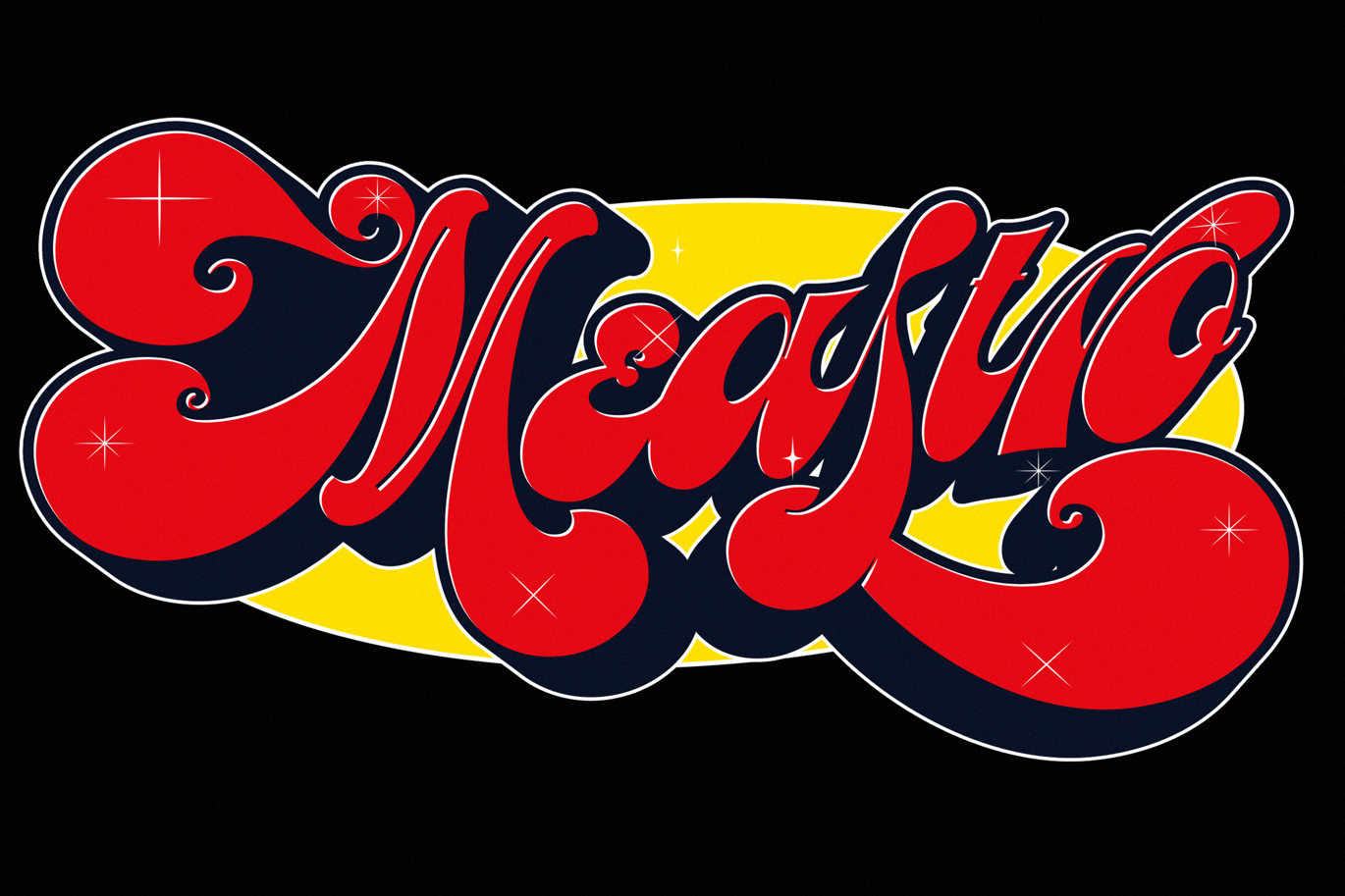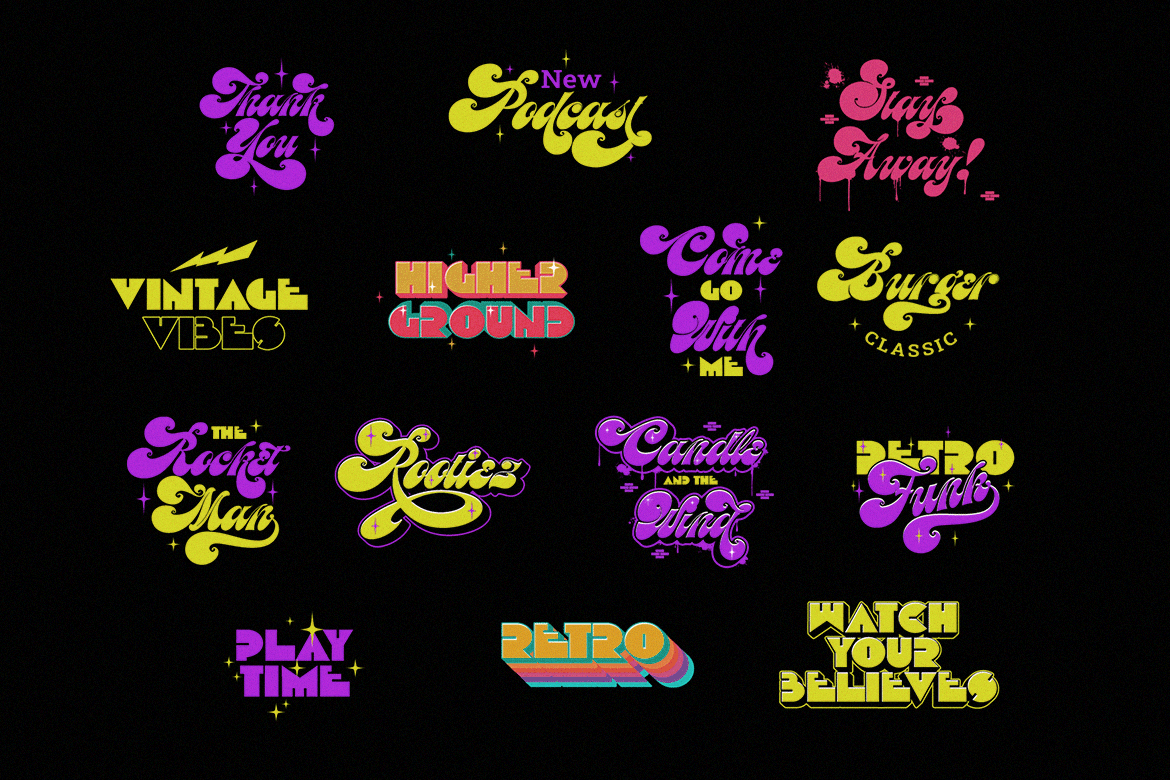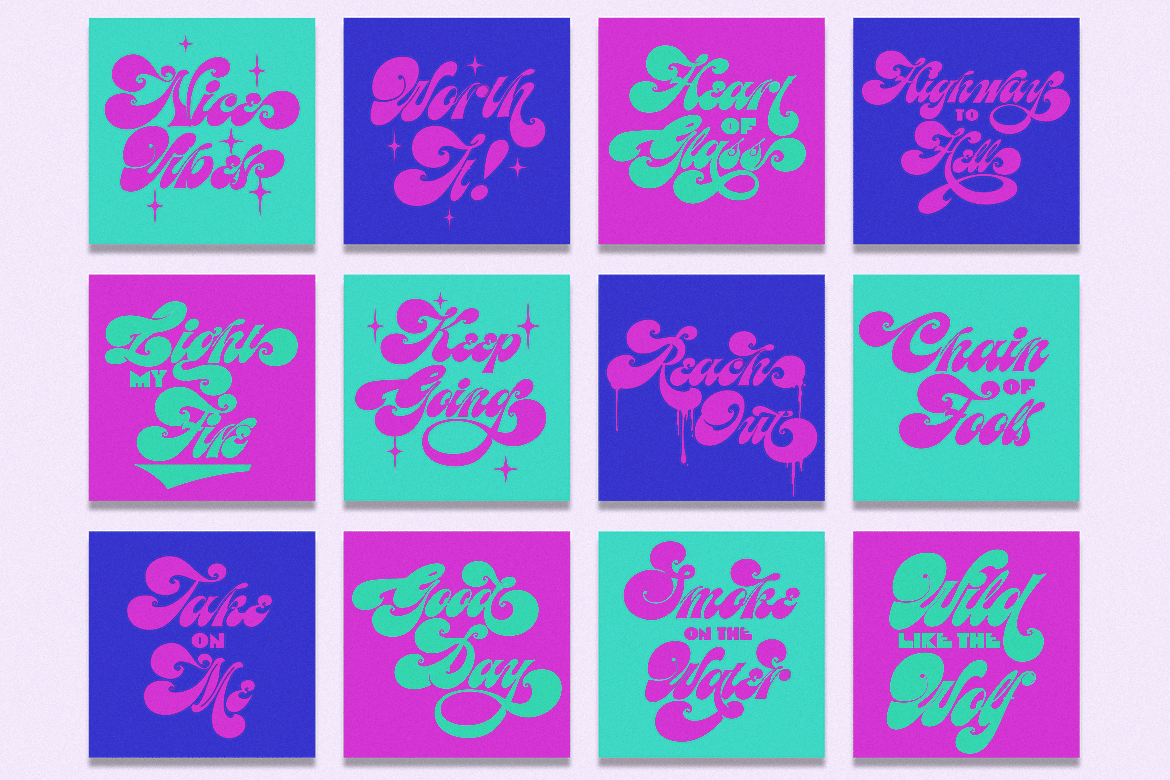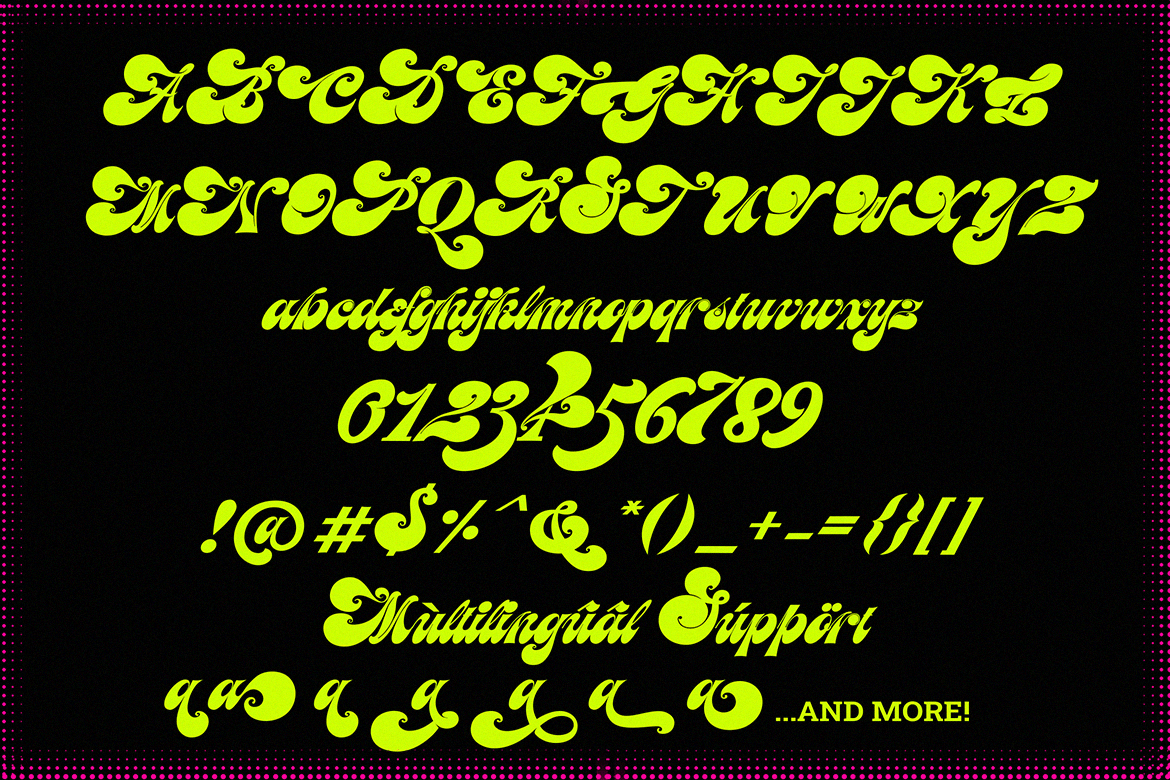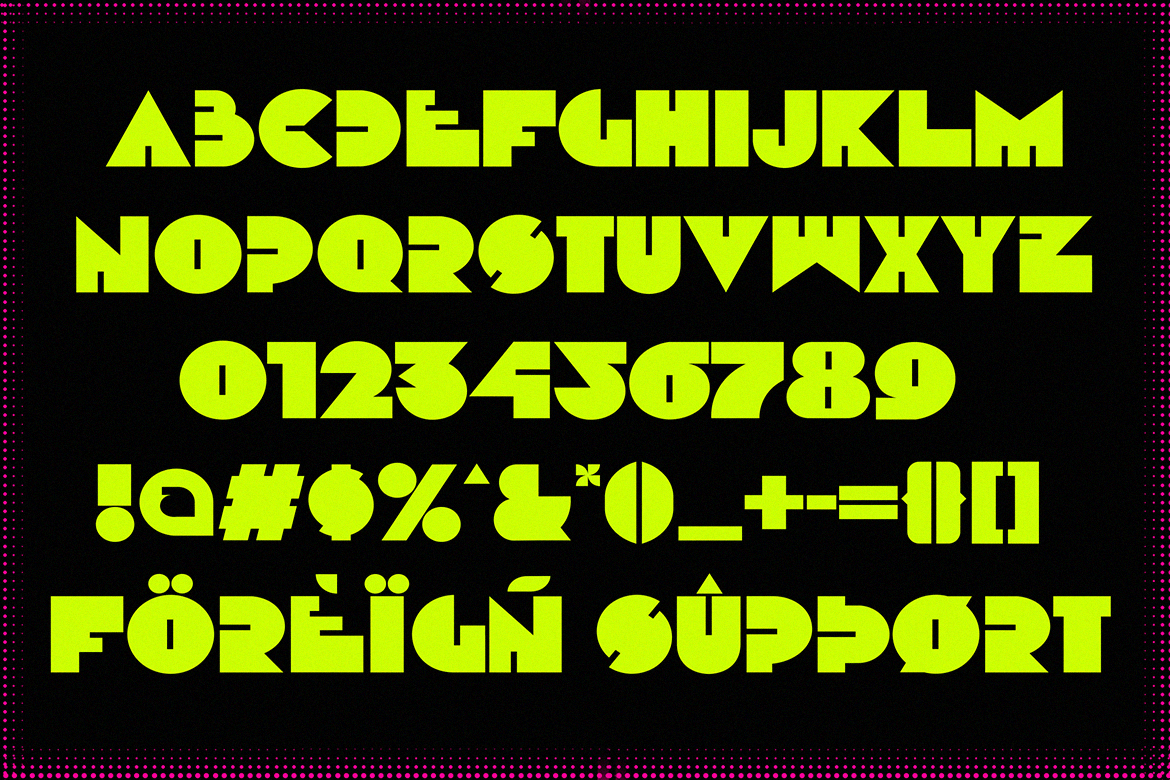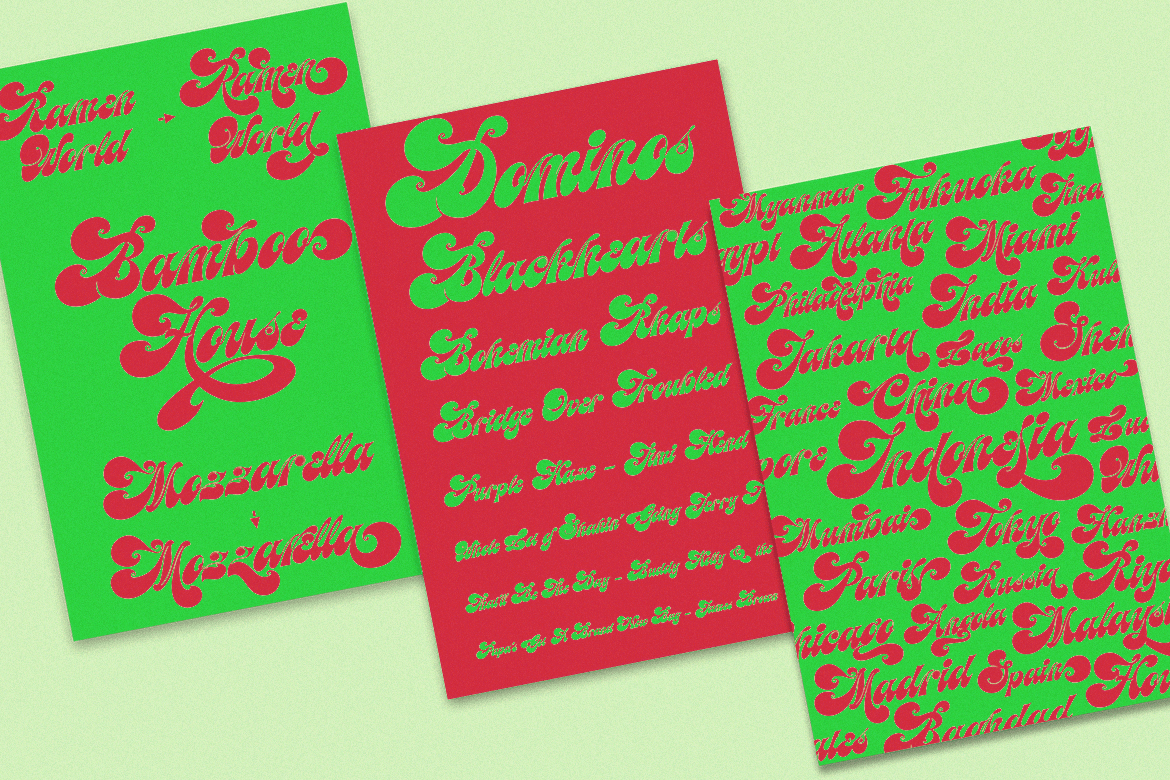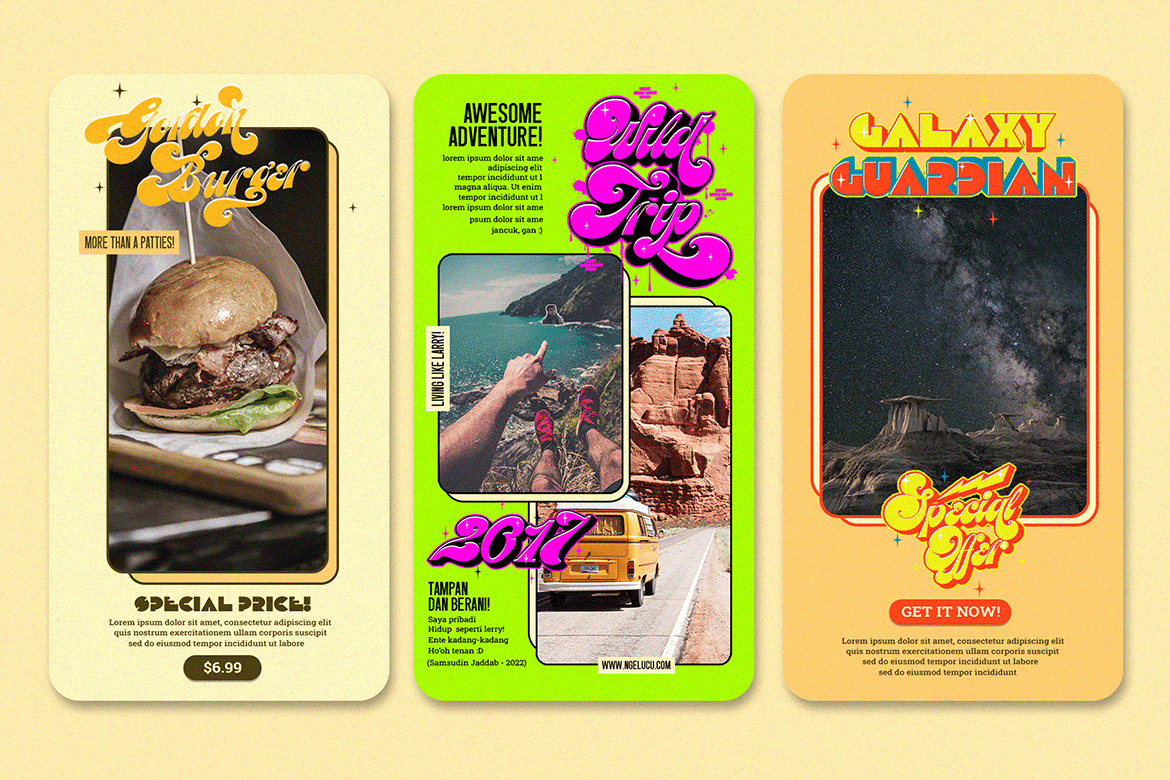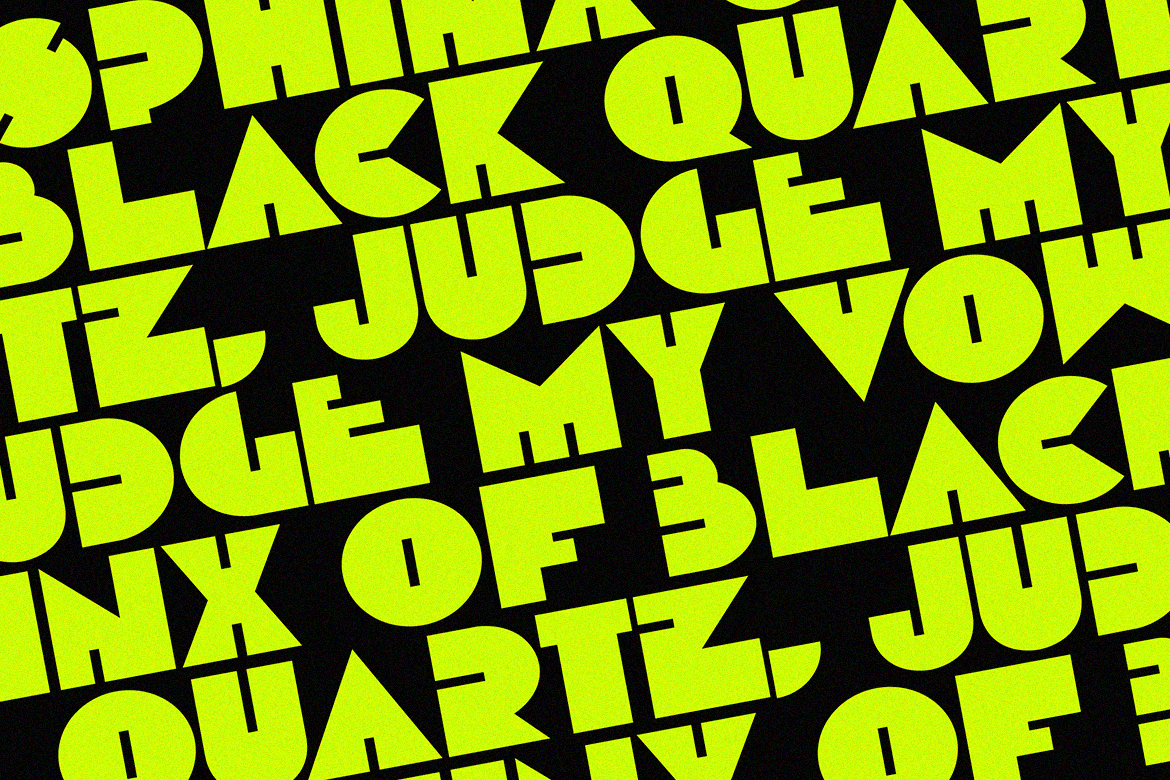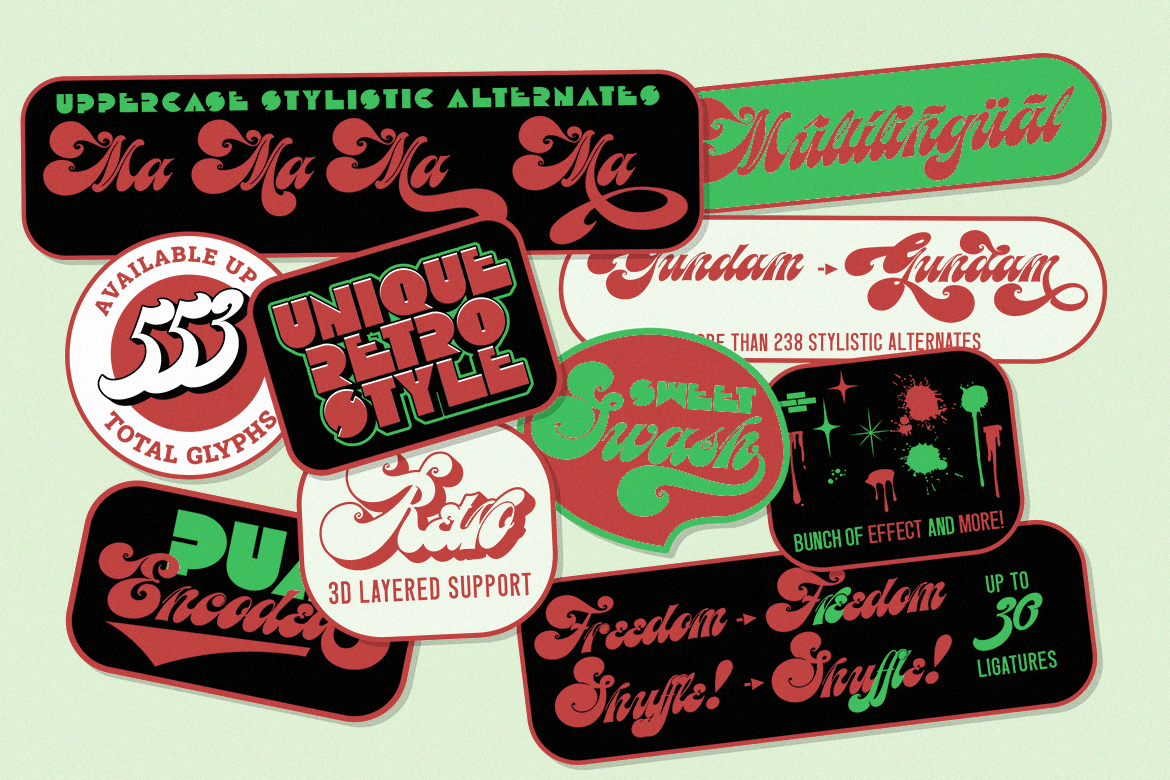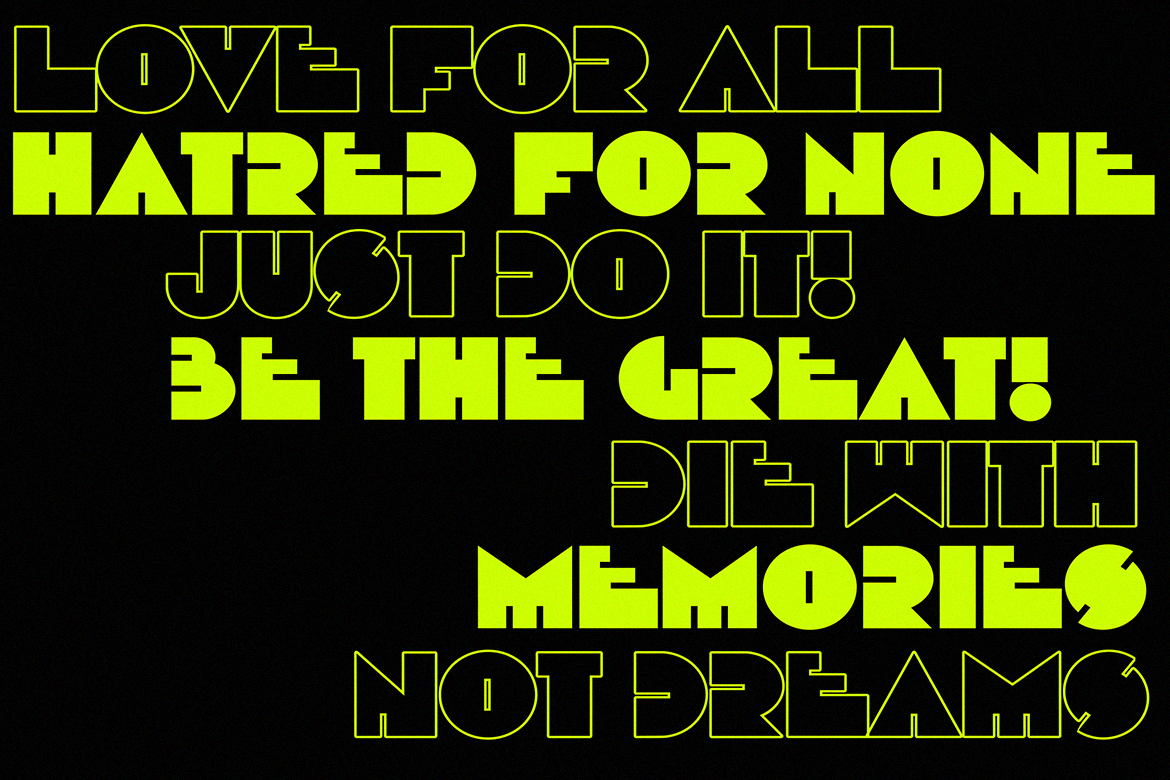
Meastro Script | Layered Retro Font
It’s been a while… more than three months we developed our brand new font. We call them “Meastro”. Fun fact though, we want to call it “Maestro”, but you know… we were afraid of the cop#right thing.
Meastro Script is a fun, bold, luscious, retro display script font. We crafted this font very carefully and make them very smoothly attach to each other. Especially, on the script version. You can see every character’s tail beautifully connected one to another without using ligatures’ help.
This font takes full advantage of the Open Type format with several automatic ligatures that occur as you type for your preferred design. Moreover, the manual stylistic alternates allow you to choose the letters you prefer. Alternates occur automatically as you type in supported programs when you have “Ligatures” or “Stylistic Alternates” turned on.
This retro typeface is perfect for logotypes, t-shirts, vintage badges, retro quotes, branding, packaging, posters, signboards, social media needs, etc.